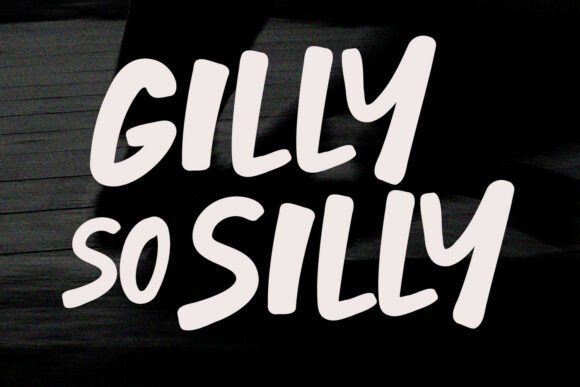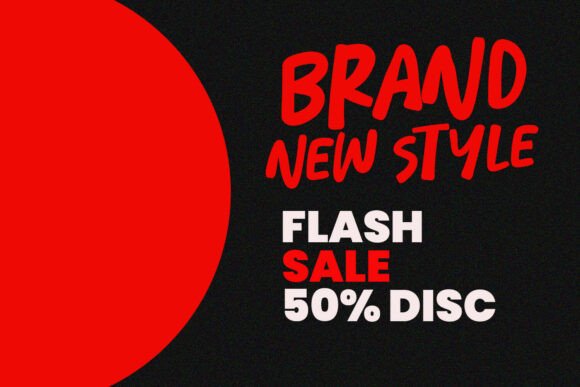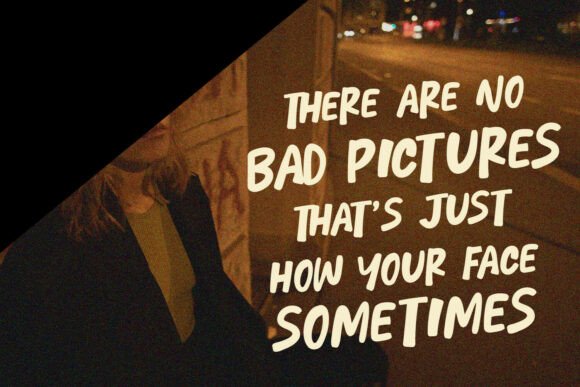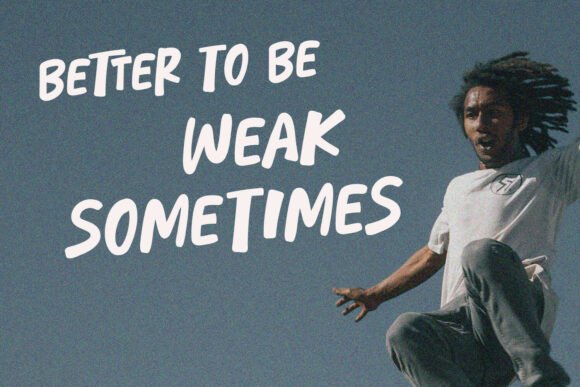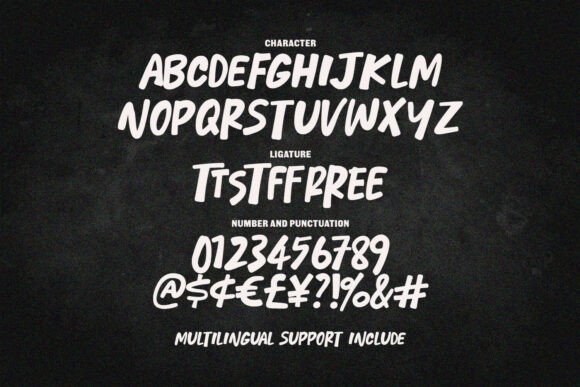
Unleash Your Creativity with Elvsion Stright: The Ultimate Display Font
In the world of typography, a font can make or break a design. It can elevate your brand, convey your message, and leave a lasting impression on your audience. If you’re a designer, crafter, or marketer looking for a font that can help you stand out from the crowd, look no further than Elvsion Stright. This handcrafted display font is designed to bring a bold, rhythmic, and authentic feel to your designs, making it the perfect choice for those who want to break away from clean, sterile typography and embrace a more “handmade” aesthetic.
The Unique Characteristics of Elvsion Stright
So, what sets Elvsion Stright apart from other fonts? The answer lies in its unique “straight” yet organic strokes. Unlike traditional fonts that can look stiff and uniform, Elvsion Stright has a personal touch that is both modern and approachable. Its bold and rhythmic feel makes it perfect for high-energy street brands, catchy social media quotes, and professional marketing materials. Whether you’re looking to create a bold statement or a subtle impression, Elvsion Stright has got you covered.
Perfect Balance of Readability and Character
One of the biggest challenges designers face is finding a font that is both readable and has character. Elvsion Stright solves this problem perfectly. Its unique design ensures that your message is clear and easy to read, while its bold and rhythmic feel adds a touch of personality to your designs. This makes it perfect for a wide range of applications, from headlines and titles to social media posts and marketing materials.
Packed with Unique Ligature Support
In today’s globalized world, designers need fonts that can support multiple languages and creative layouts. Elvsion Stright rises to the challenge with its unique ligature support. This means that your message stays consistent across different languages and creative layouts, ensuring that your brand’s voice is heard loud and clear. Whether you’re working on a global campaign or a local project, Elvsion Stright has got you covered.
Why Choose Elvsion Stright?
So, why should you choose Elvsion Stright over other fonts? Here are just a few reasons:
- Unique and authentic feel: Elvsion Stright has a bold, rhythmic, and authentic feel that sets it apart from other fonts.
- Perfect balance of readability and character: Elvsion Stright ensures that your message is clear and easy to read, while adding a touch of personality to your designs.
- Unique ligature support: Elvsion Stright supports multiple languages and creative layouts, ensuring that your brand’s voice is heard loud and clear.
- Handcrafted with love: Elvsion Stright is a handcrafted font that is designed with love and care, ensuring that every detail is perfect.
How to Use Elvsion Stright
Using Elvsion Stright is easy. Here are a few tips to get you started:
- Pair it with a simple font: Elvsion Stright is a bold font, so it’s best to pair it with a simple font to create contrast.
- Use it for headlines and titles: Elvsion Stright is perfect for headlines and titles, where you want to make a bold statement.
- Experiment with different colors: Elvsion Stright looks great in a variety of colors, so don’t be afraid to experiment and find the perfect color for your design.
In conclusion, Elvsion Stright is a unique and versatile font that is perfect for designers, crafters, and marketers who want to add a personal touch to their designs. Its bold, rhythmic, and authentic feel makes it perfect for a wide range of applications, from high-energy street brands to professional marketing materials. With its unique ligature support and handcrafted design, Elvsion Stright is the ultimate choice for those who want to break away from clean, sterile typography and embrace a more “handmade” aesthetic.